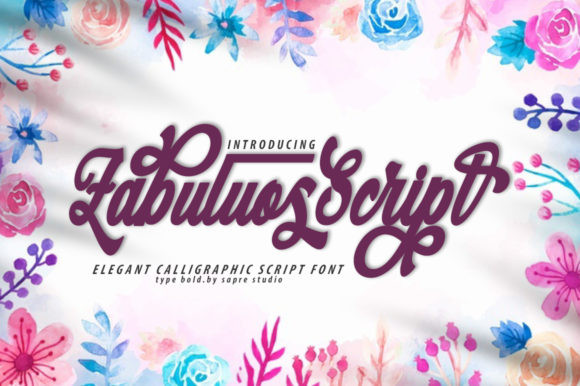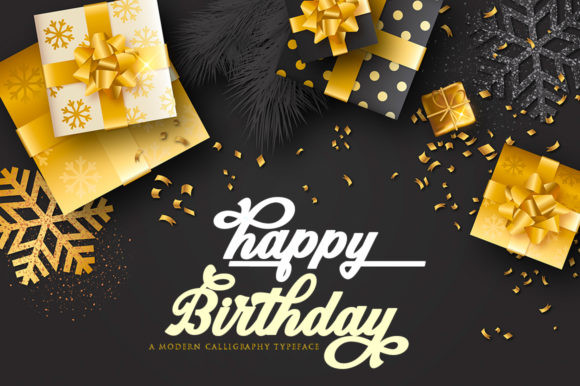
Fabuluos Font
Fabuluos FontFabuluos is a fun and modern script font. It features elegant swashes that will take your designs to the next level!
This font is PUA encoded which means you can access all of the glyphs and swashes with ease!